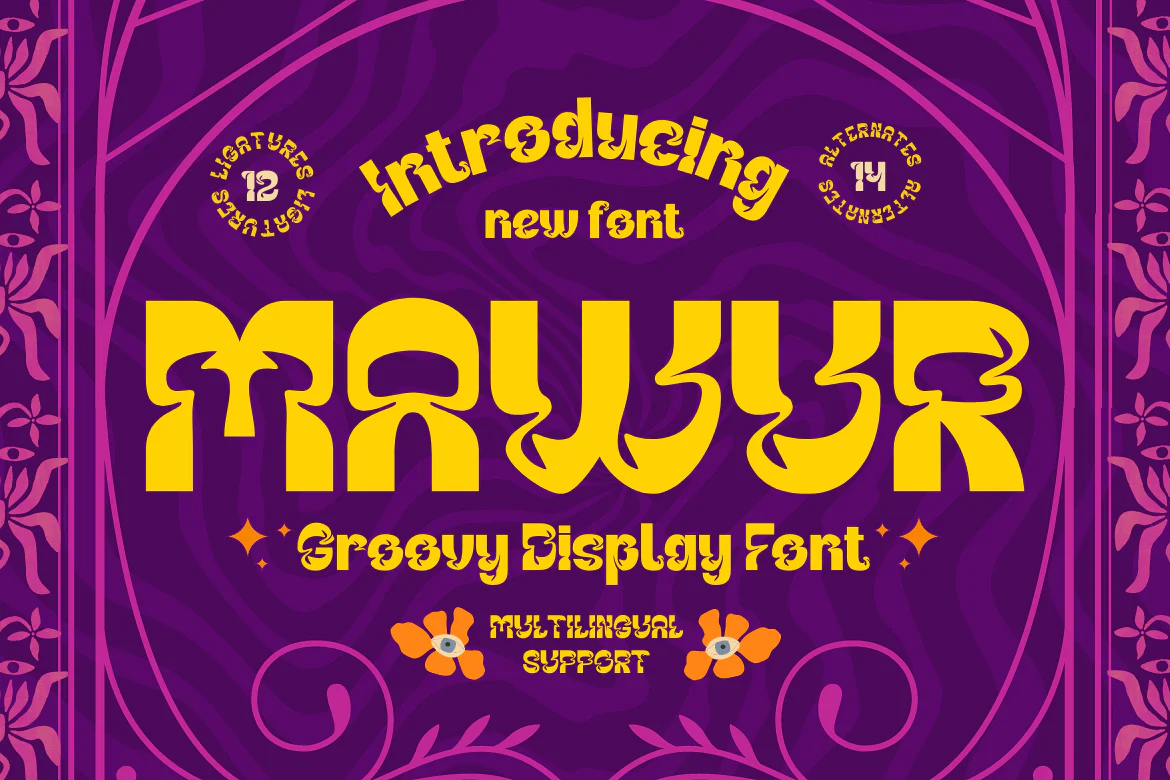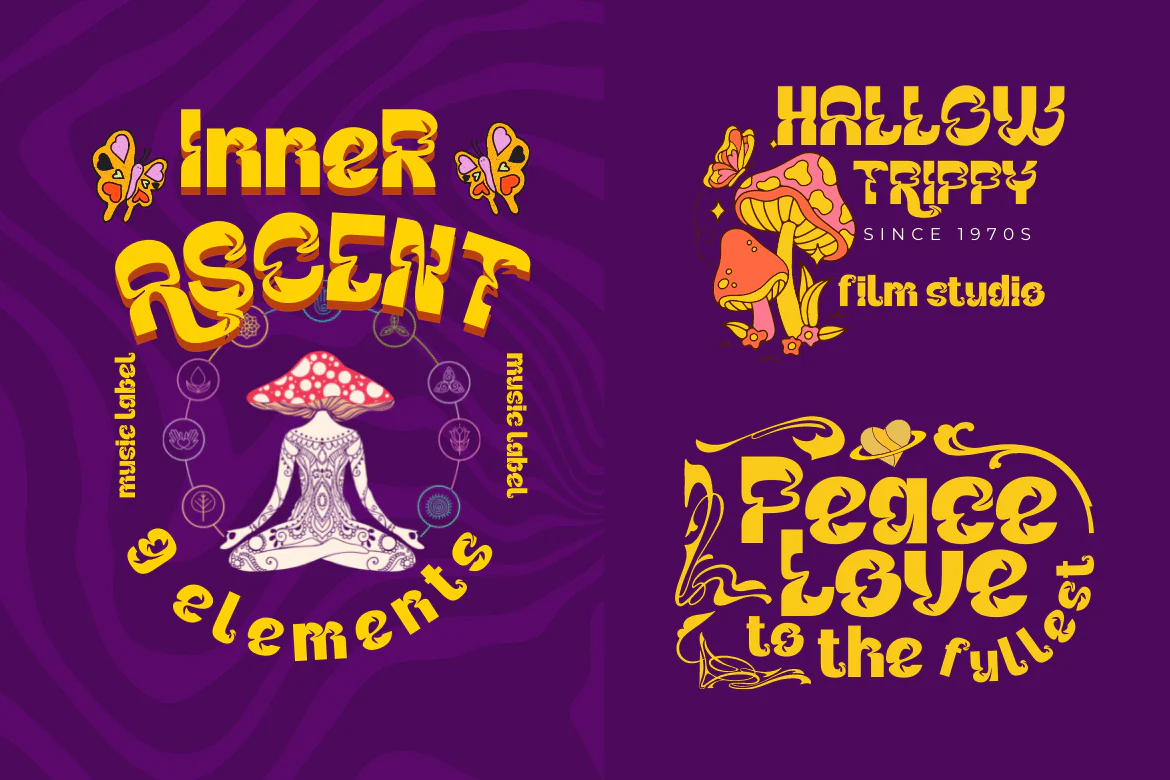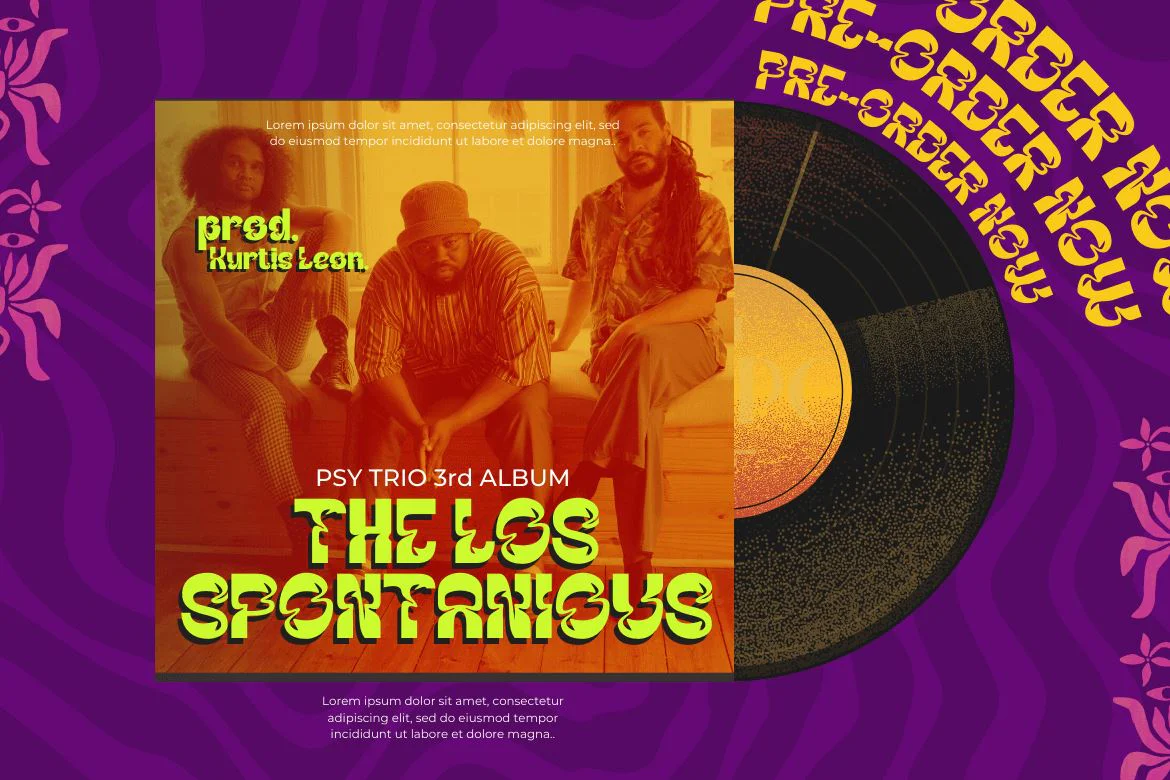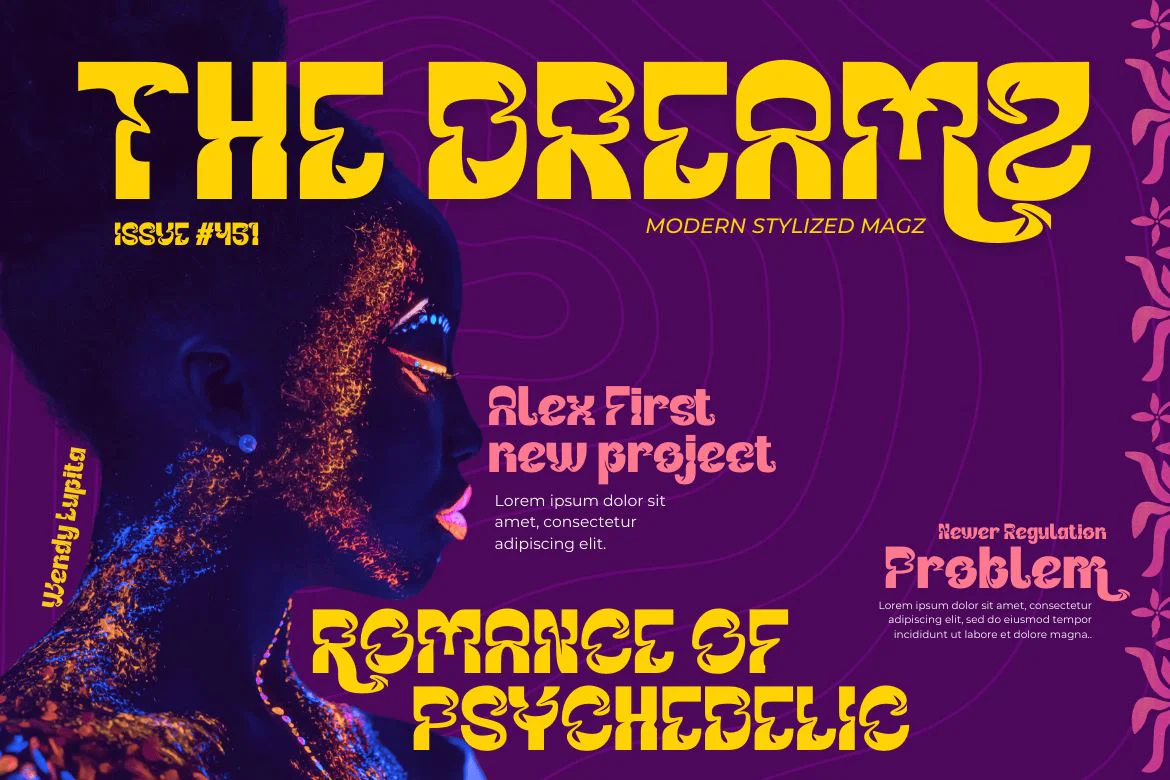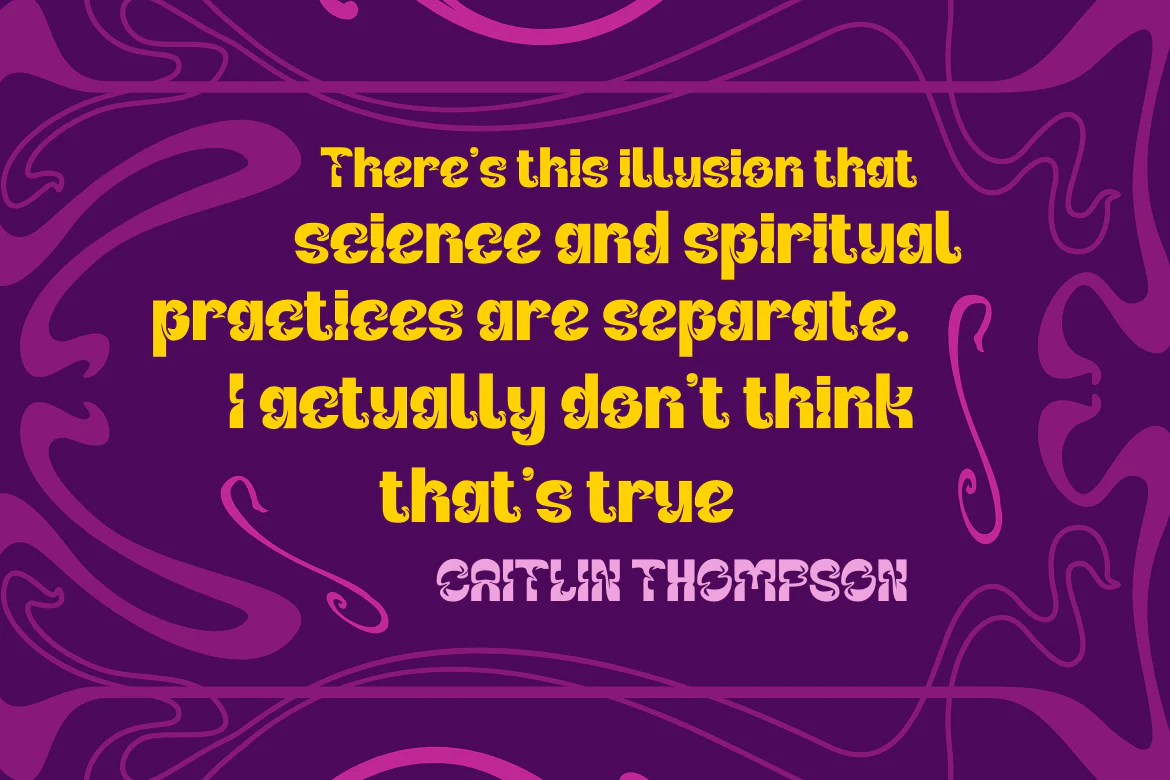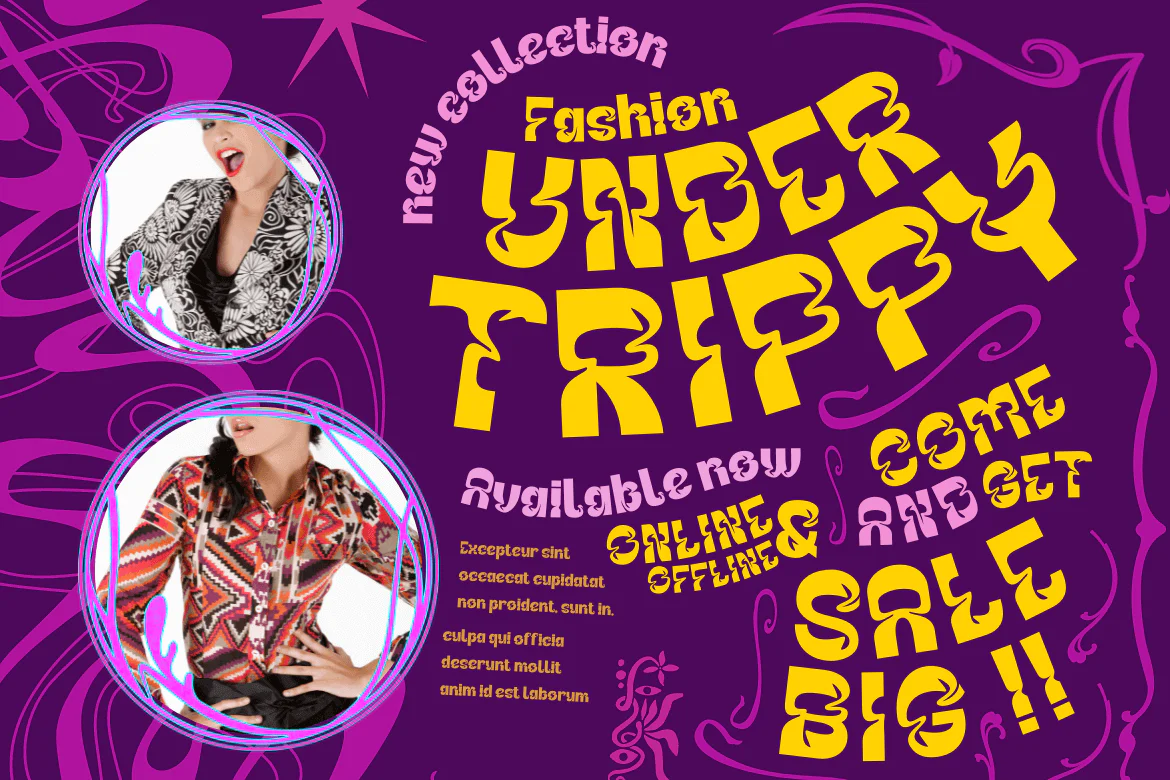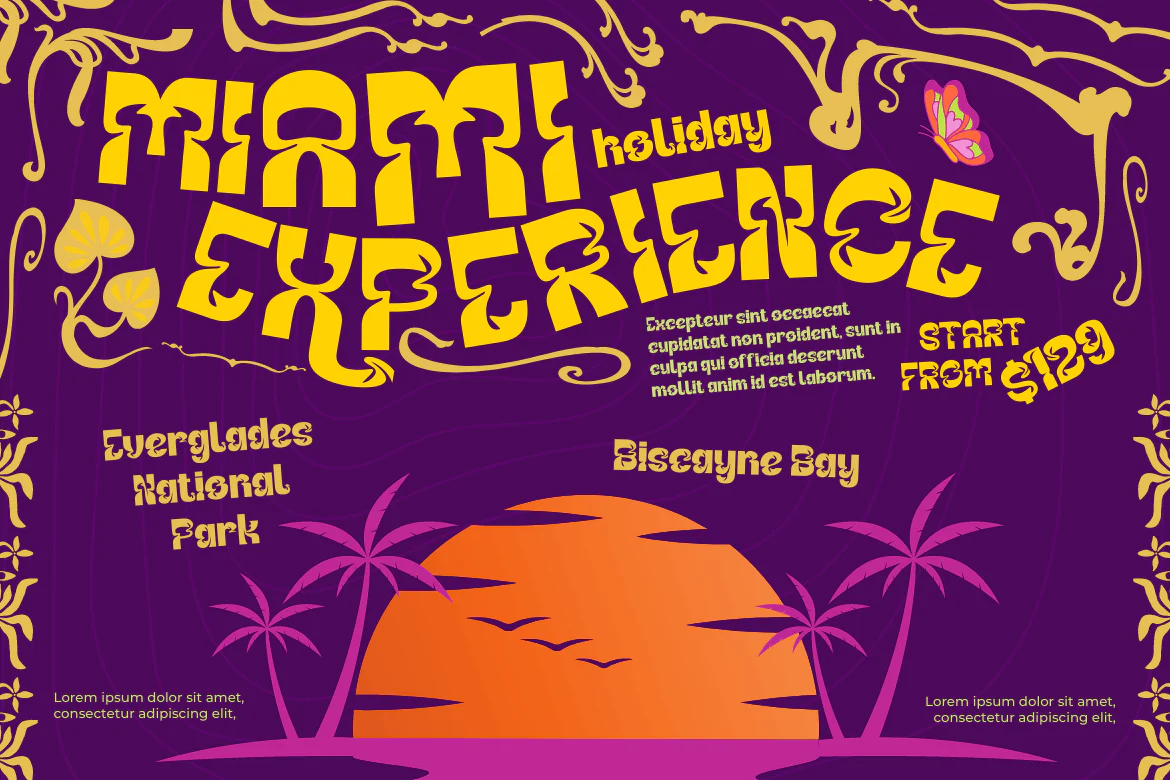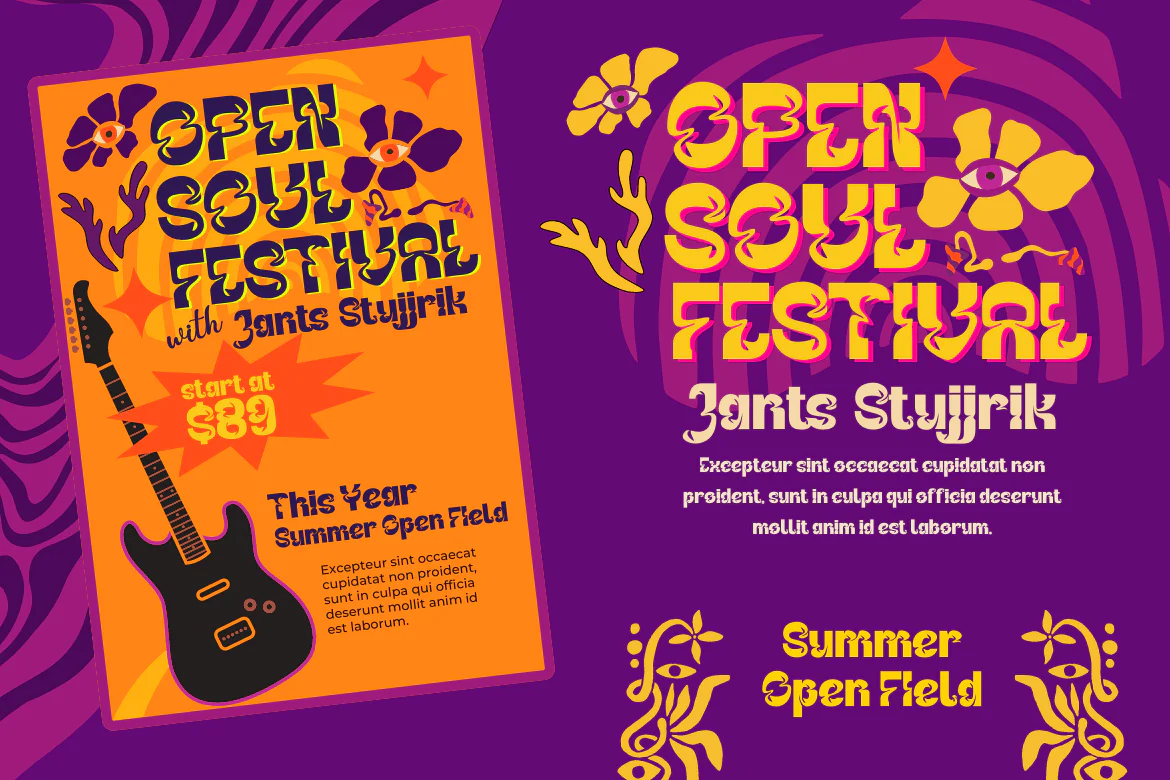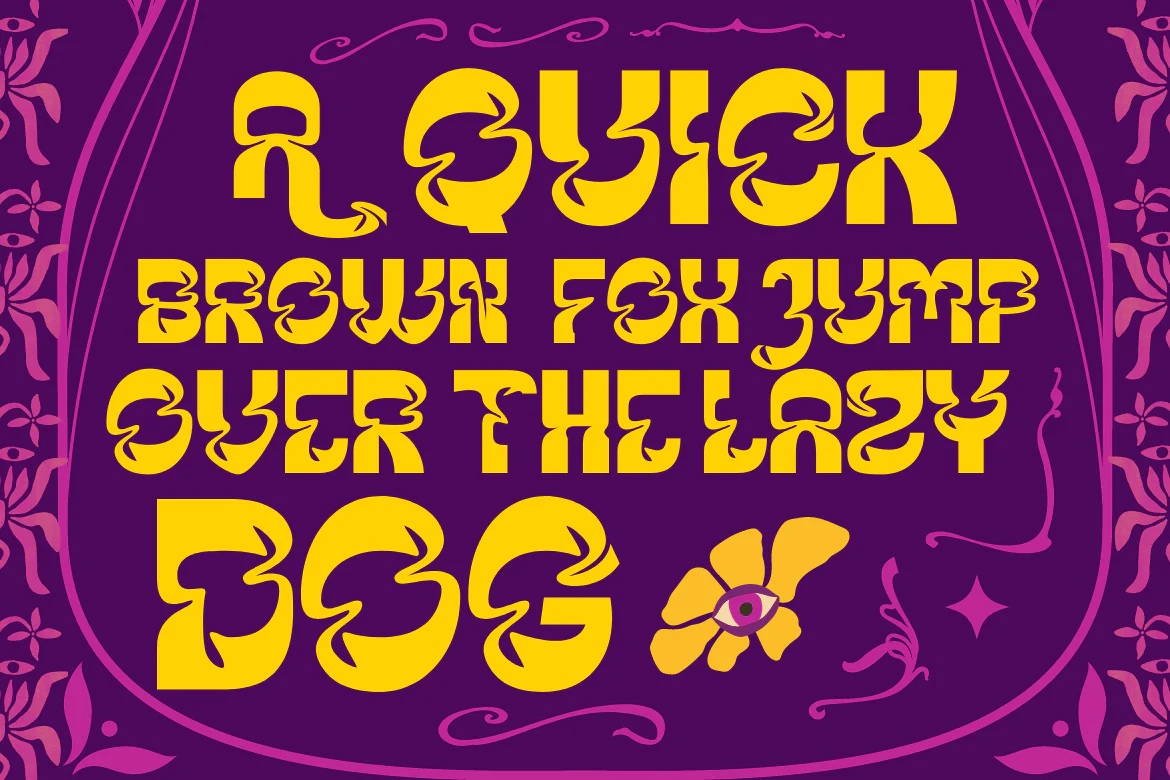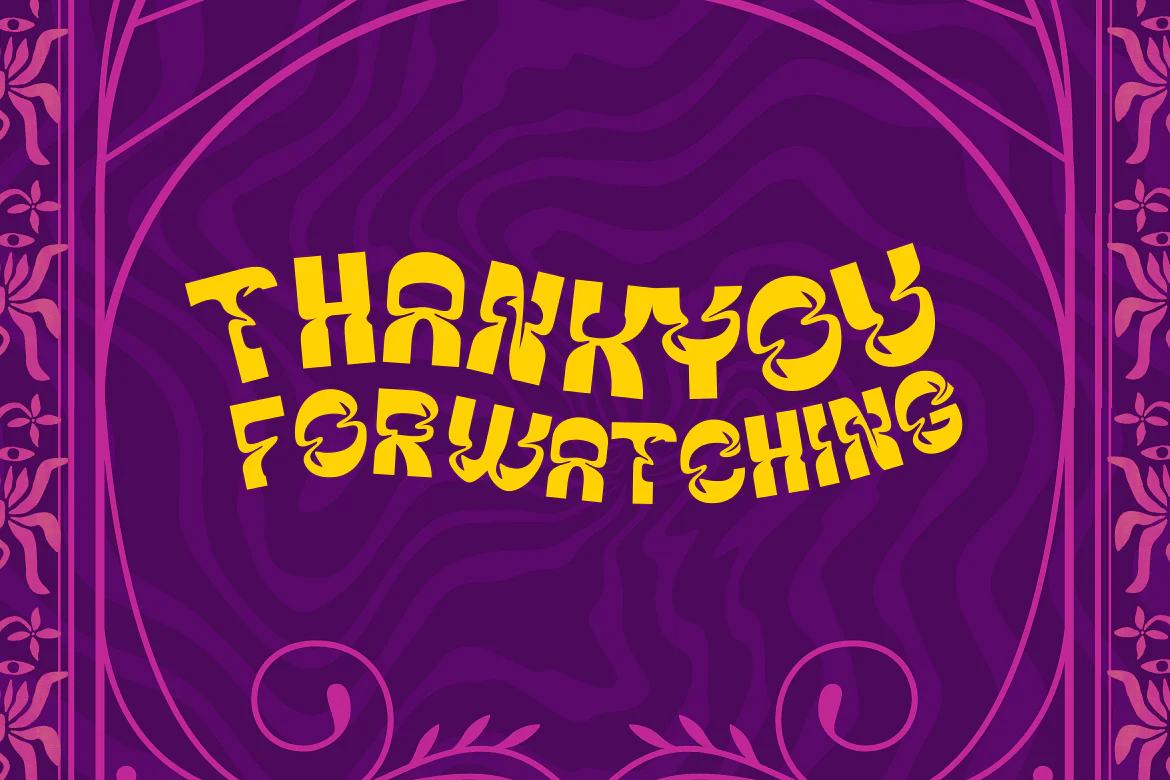
MAWUR | Groovy Retro Font
Introducing the Groovy font called Mawur. This font is the perfect way to add style and flair to your designs! The unique, sophisticated shapes and amazing mix of shapes in this font will automatically add a touch of class and sophistication. ideal for use in greeting cards, posters, product packaging, or just to add a little flair to your designs. Its simplicity will make it easy to read and you can use it anywhere you like. Grab your copy now and start making the most of it today!